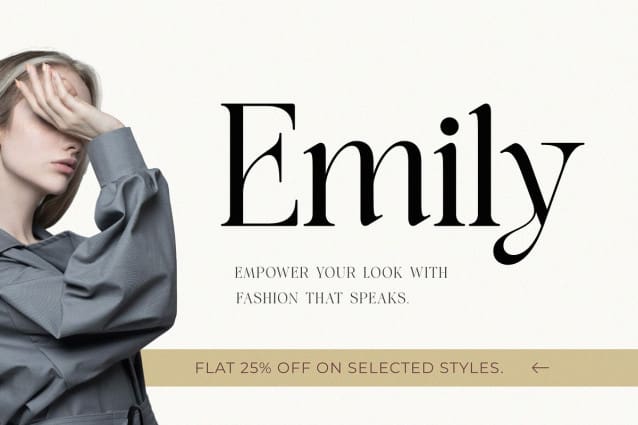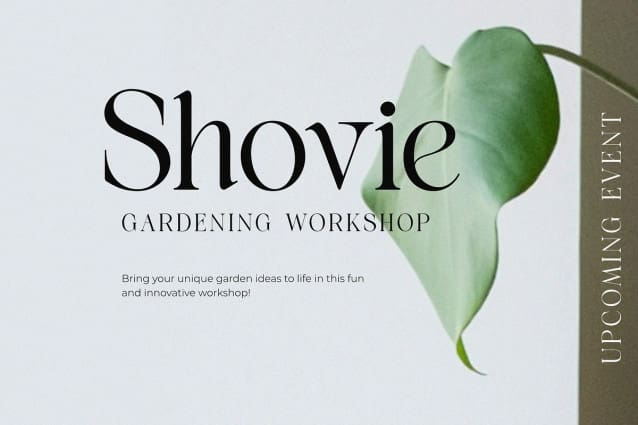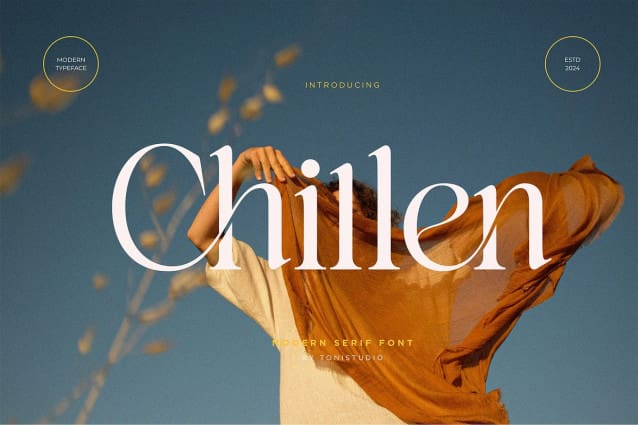
Chillen Font
Chillen Font is a charming serif font with timeless elegance and subtle curved details in each character. This font presents the perfect blend of classic and modern styles, creating a luxurious feel that is still easy to read. Suitable for various purposes such as branding, logos, invitations, and marketing designs, Chillen provides an elegant touch that increases professionalism and visual appeal to each of your projects.